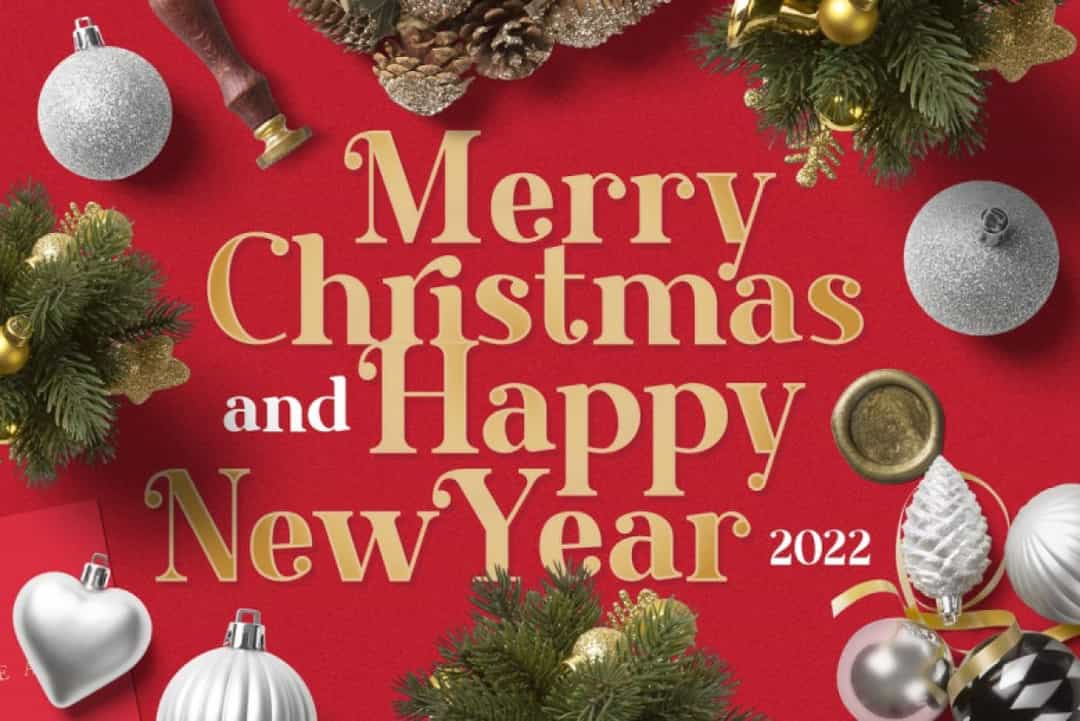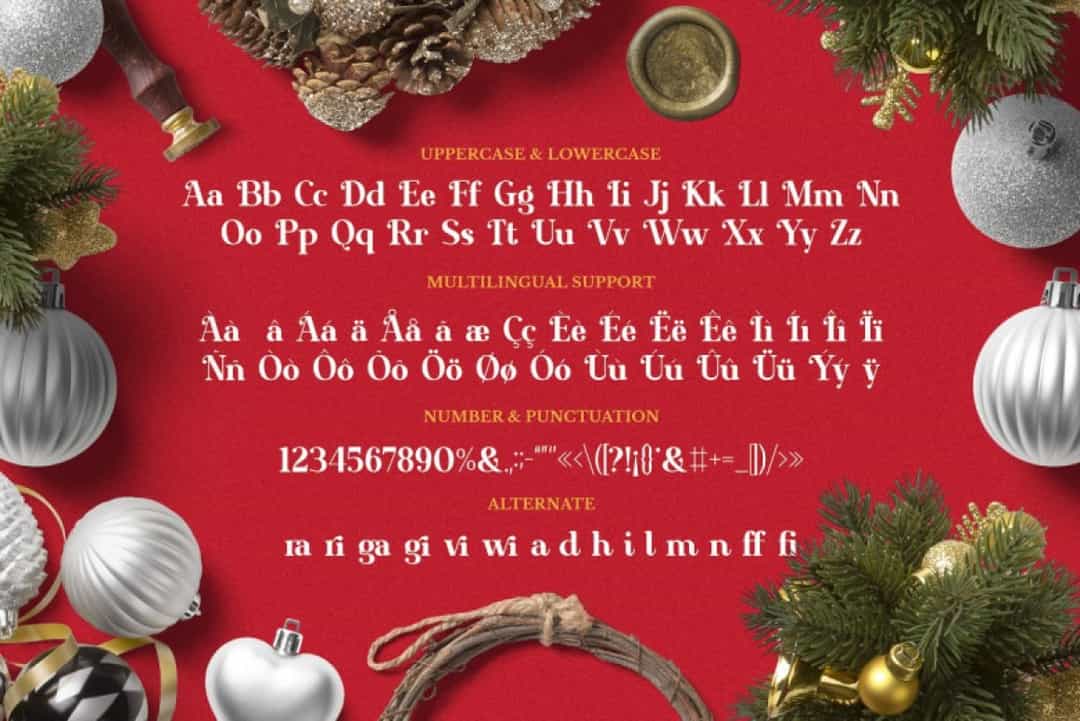
Discover Regale Font, part of the Serif Christmas collection—a versatile and unique font perfect for adding a personal touch to your projects. Download it for free and enjoy crafting designs with style, from invitations to social media posts. This font is available exclusively for personal use, giving you the freedom to create without limits. Unlock your creativity with Regale Font today!
Regale Serif Font is perfect for use in many projects such as logos and branding for photography invitations, watermark advertising campaigns and wedding invitations, stationery labels packaging for products and special events and much more.